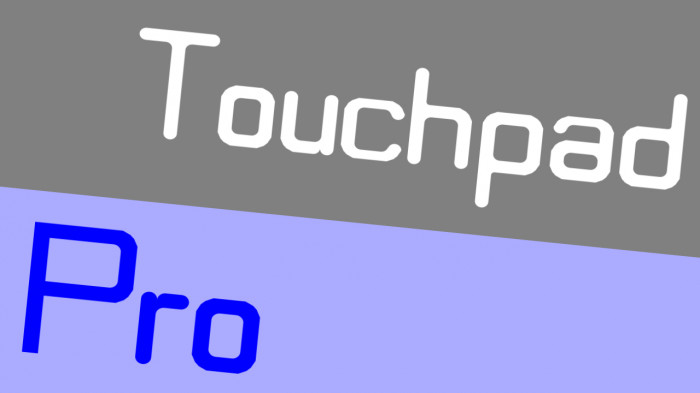
Touchpad Pro is a Regular Sans typeface, and the index of a typography collection. As pragmatic as it is friendly, Touchpad Pro was based title Source Sans Pro. Such as subheads, body copy and captions. However, the recent letter weights of the font work best in headlines.
Regular Sans
es ist eine normale schrift halt (nur ein bichen runder) [germany]